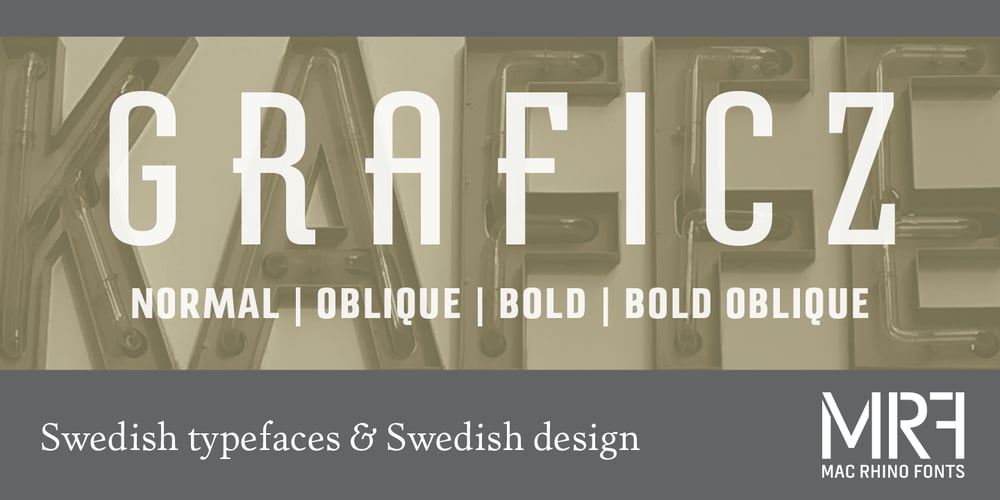
Graficz Font Family was designed by Stefan Hattenbach and published by MAC Rhino Fonts. Graficz contains 4 styles and family package options. The origin of this typeface is a Polish catalog cover dated 1936, made by I. Rubin. The word ”Graficz” (included in the poster copy) seemed appropriate as a name for this typeface with its typical ”Central European look”. The original letters are more ”thin” (light weight) than the MRF interpretation and only consists of capital letters. Lower cases and almost all standard character signs have been added, in order to make it more functional.